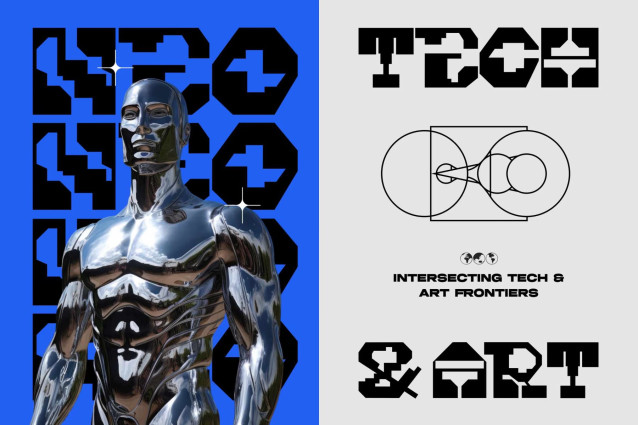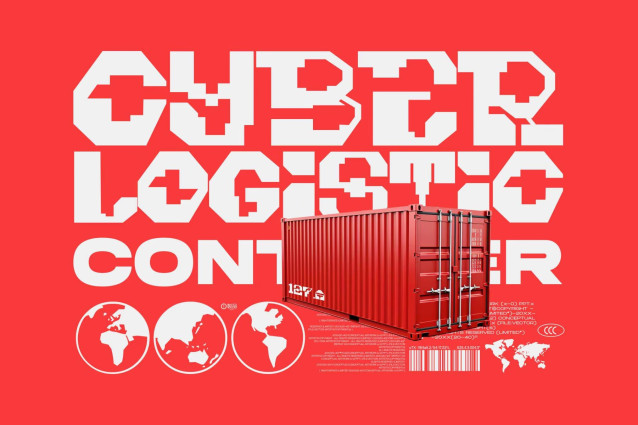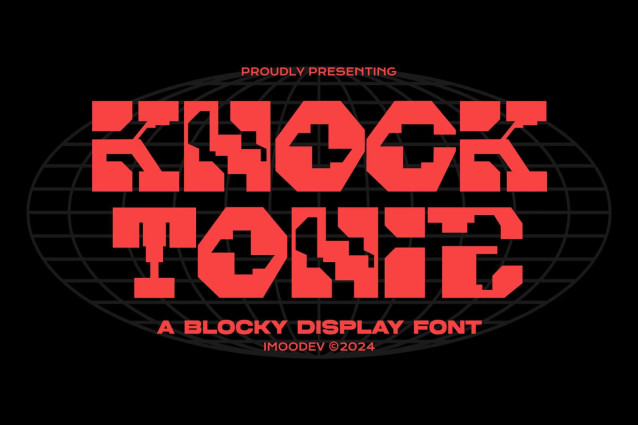
Knock Tonic Font
Knock Tonic is a blocky futuristic display font that radiates futuristic and modern style. Carrying a sharp and bold design with a little accent on each character, integrate into technology, futuristic, and outer space themes, each character reflects innovation, creating an extraordinary impression in every design.
Perfectly fit for gaming stuff, branding, logo, digital concept, game design, sci-fi, synthwave, vaporwave, futuristic poster, brutalism, graphic design, techwear apparel, vehicles, robots, toys, anytime you need a future touch.